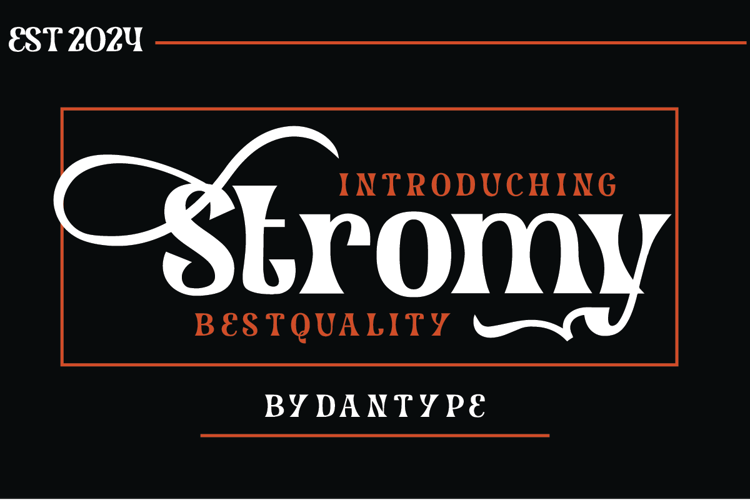
Stromy Font
Stromy Display Font - This font would be perfect for photography, watermarks, social media posts, advertisements, logos & branding, invitations, product design, labels, stationery, product packaging, special events, and other projects. This font is PUA encoded which means you can access all glyphs with ease!